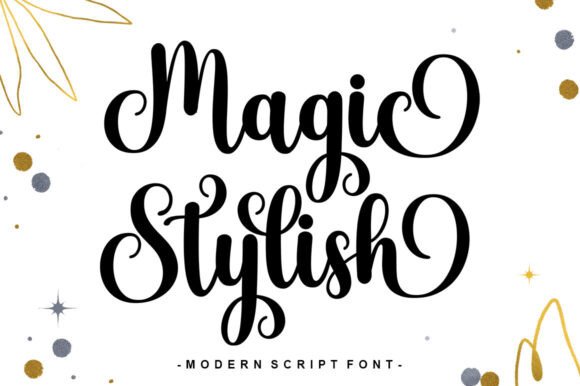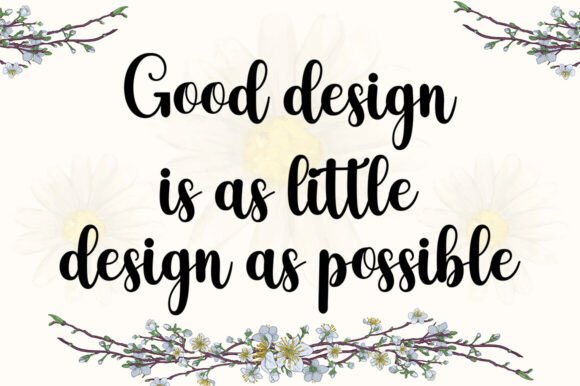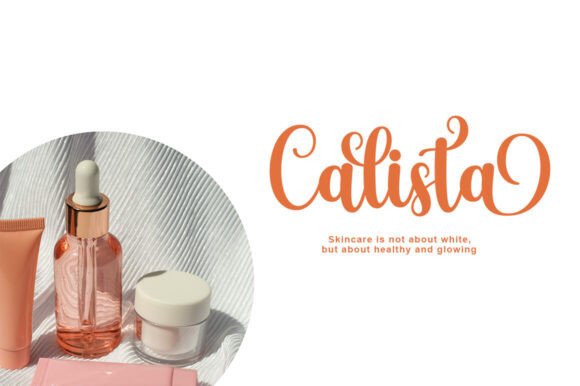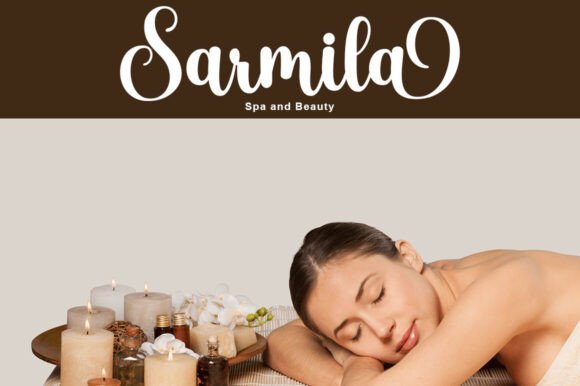
Magic Stylish Font
About the Magic Stylish Font
Explore the possibilities with Magic Stylish Font, a font that offers both beauty and functionality. Magic Stylish is a romantic, flowing script font that oozes elegance and affection. Ideal for wedding invitations, Valentine’s Day cards, love notes, branding, and any romantic project in need of a delicate handwritten touch.
Its elegant, flowing forms make it particularly well-suited for projects requiring a touch of romanticism, such as wedding stationery, branding for luxury goods, or packaging for beauty products. However, its decorative nature limits its use for body text or UI elements; readability suffers at smaller sizes and in continuous blocks of text.
Magic Stylish pairs beautifully with clean sans-serif fonts like Montserrat or Lato for a balanced contrast between the script’s flourish and the sans-serif’s modern simplicity. For a more traditional feel, consider pairing it with a classic serif like Garamond or Times New Roman. Avoid pairing it with other highly decorative fonts, which could create visual clutter.
The font’s overall personality is sophisticated and romantic, conveying a sense of luxury and intimacy. Its delicate curves and graceful ligatures make it a perfect choice for projects aimed at a refined audience.
Magic Stylish Font Usage Examples
Magic Stylish Font Example